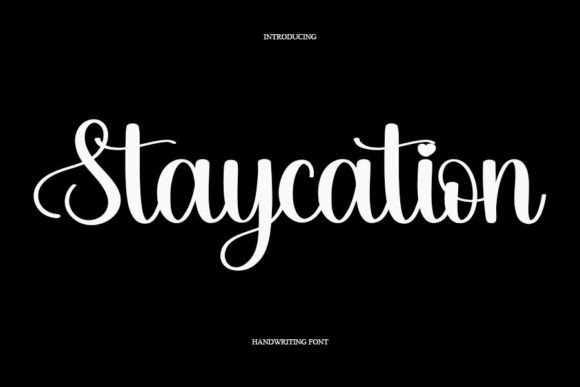
Download Staycation Font for free! Created by Harlek studio and published by William Clark, this script font family is perfect for adding a unique touch to your designs.